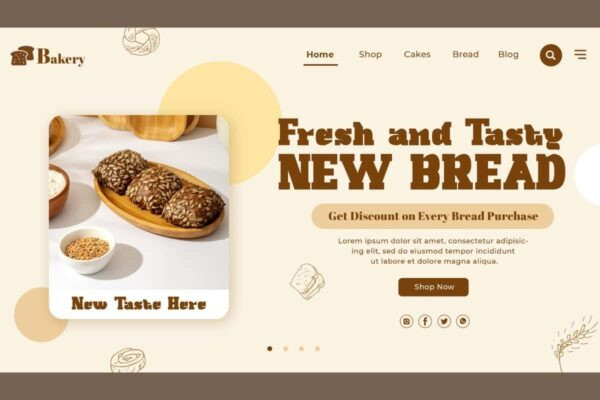
Marolly Bruce Font
Marolly Bruce Font is an aesthetic display font that comes with slab cube edges serif look. This font has a unique character so it can add an attractive aesthetic to your design. It will look good on invitation, stationery, poster, custom design, product packaging, quotes, signage, brand image, advertisement, label, marketing material, website page, and more!
Marolly Bruce Font includes a full set of ALL CAPS for Uppercase and Lowercase Letters, Numerals, and large range of Punctuation. This stylish font will be suitable for various industries, such as fashion, jewelry, cafe, event or wedding organizer, photography, printing, publishing, etc.